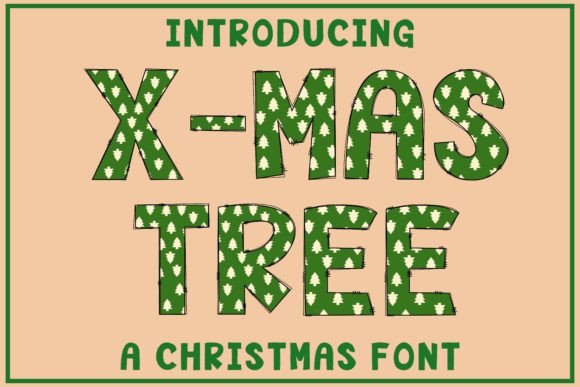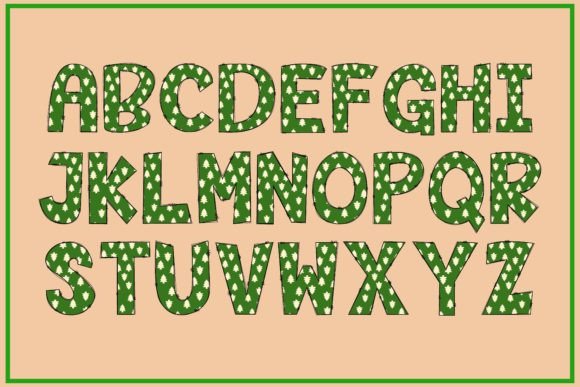
About X-mas Tree Font
Introducing X-mas Tree, a delightful and uniquely crafted color font that captures the spirit of Christmas. With its fun and playful characters, this font is perfect for a wide range of festive projects.
X-mas Tree features charming and whimsical letters that are designed to resemble the shape of Christmas trees. Each letter is adorned with colorful ornaments and decorations, creating a joyful and festive atmosphere. Whether you’re creating stickers, mugs, t-shirts, ornaments, Christmas day event cards, or event invitations, this font will bring a touch of holiday cheer to your designs.
The versatility of X-mas Tree allows you to explore various creative possibilities. Use it to design personalized greeting cards, add a festive touch to your social media posts, or create eye-catching signage for your Christmas events. The playful nature of the font will instantly grab attention and evoke a sense of joy and celebration.
Embrace the holiday spirit with X-mas Tree and let its fun and uniquely crafted characters add a touch of magic to your Christmas projects. Spread the joy and cheer of the season with this delightful color font that is sure to captivate hearts and bring smiles to faces.